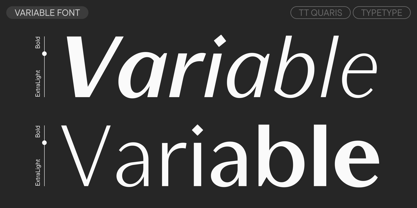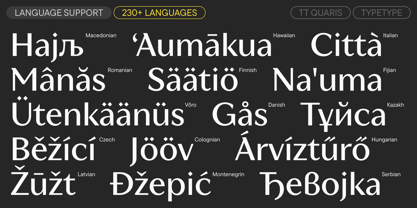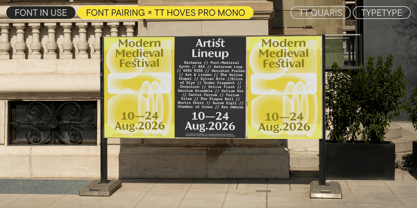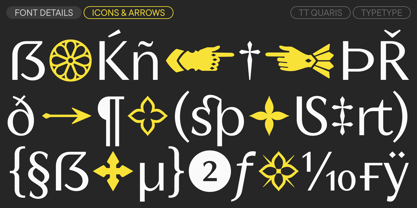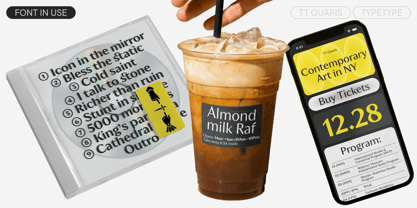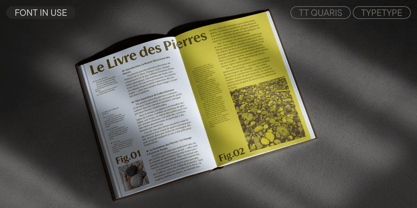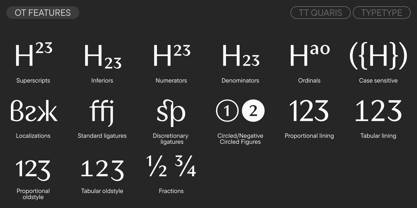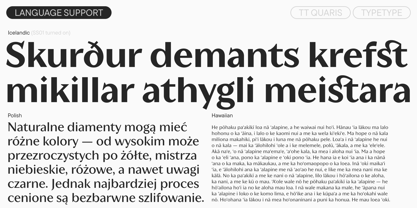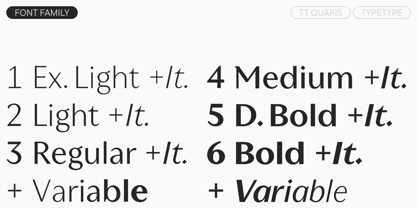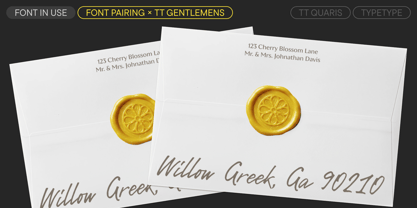
TT Quaris
A família de fontes TT Quaris foi desenhada por Ivan Gladkikh, Antonina Zhulkova, TypeType Team e publicada pela TypeType. TT Quaris contém 14 estilos e opções de pacote familiar. Saiba mais sobre esta família
Meet the new font in the TypeType collection—the luxurious TT Quaris, where elegance, mystery, and audacity converge. TT Quaris is an exquisite and modern high-contrast sans. Before developing this typeface, we carried out an in-depth study of high-contrast sans archetypes. Based on our findings, we formulated the key parameters and stylistic features of the future font, after which we began its development. The creation of the family took over two years and 2,500 hours of painstaking work. The result is a graceful, yet fresh and unconventional typeface. Its design features modern elements: a lack of stem flaring, high contrast, and a static structure. TT Quaris is a balance of soft and sharp. The name alludes to smooth precious stones that can be given sharp edges when cut. For instance, the character shapes are fluid and tend towards roundness, yet there are sharp elements—the apex of the 't', geometric details, and diamond-shaped punctuation marks. The typeface's key feature is a 'spiky' stylistic set with sharp spurs and spikes on the letters. With its help, you can radically change the font's character, transforming it from refined and noble to daring and provocative. We paid special attention to the italics, adding true italic forms, which are particularly prominent in the Cyrillic set. The italic font styles are slightly lighter and noticeably narrower than the uprights: this approach is a nod to classic italics, however, in TT Quaris, they look current and modern. The typeface's capabilities are expanded by two variable fonts (upright and italic), which change along the weight axis. Additionally, your designs can be enhanced with a set of icons related to the medieval themes of knighthood and romanticism: among them, you will find ornamental patterns and stained glass windows from Gothic cathedrals. TT Quaris fits perfectly into the identity of a jewelry brand, can be used on cosmetics and perfume packaging, will look harmonious in the design of exhibitions and museum navigation, on the covers of glossy publications, and in the menus of bars and restaurants. TT Quaris includes: 14 styles: 6 uprights, 6 italics, and 2 variable fonts 1,015 glyphs in the upright styles and 1,003 glyphs in the italics 29 OpenType features Support for over 230 languages TT Quaris — a true diamond in the world of type!
Designers: Ivan Gladkikh, Antonina Zhulkova, TypeType Team